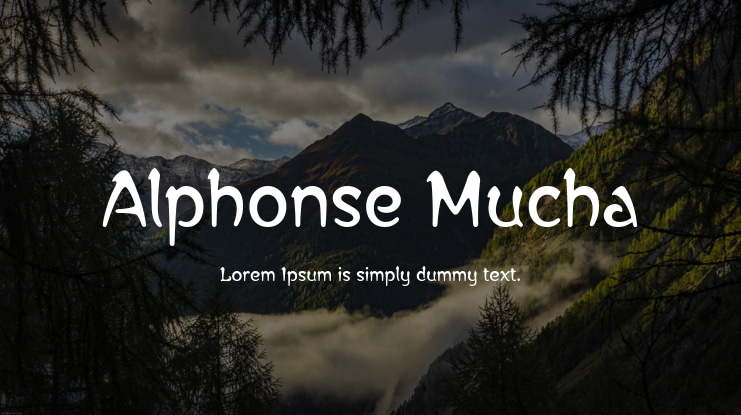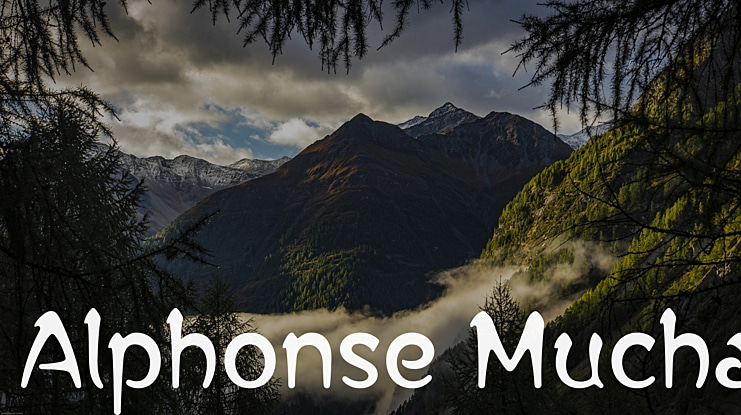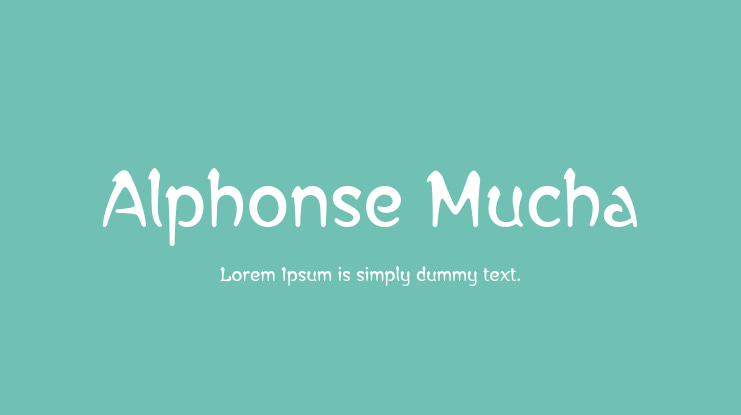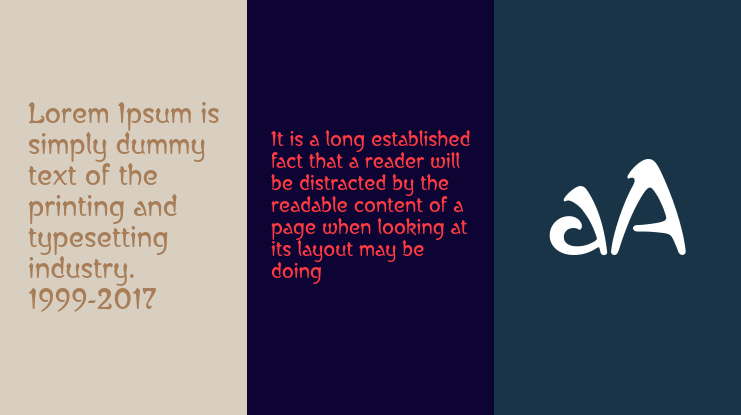
Alphonse Mucha Font
Keith Bates
The Alphonse Mucha font is extrapolated from the nine capital letters in Mucha's 1913 concert poster for the cellist Zdeňka Černý.